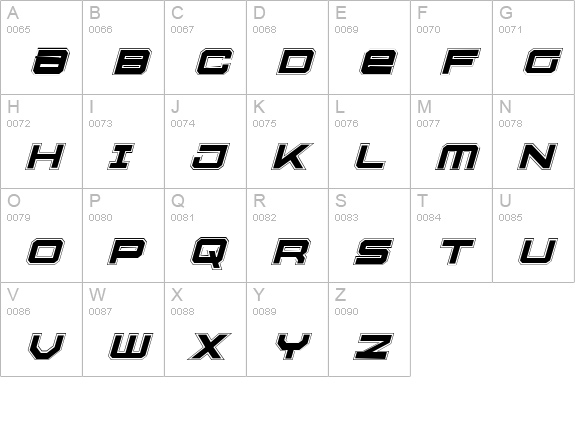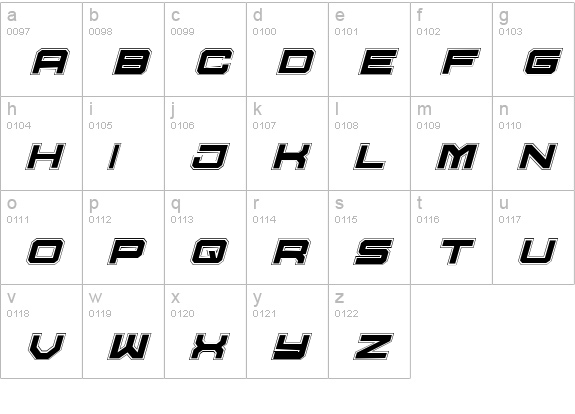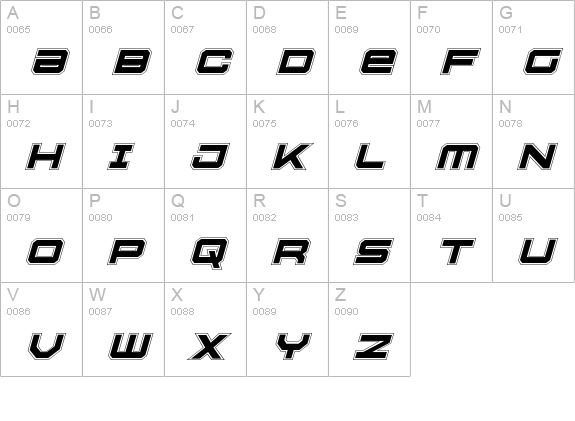
U.S.S. Dallas Academy Italic is a distinctive, italic variant in the U.S.S. typeface family \xE2\x80\x94 well suited to design and typography projects.
The U.S.S. Dallas Academy Italic font is a sleek and modern typeface that exudes elegance and sophistication. Its italicized style adds a touch of flair and sophistication to any design project. This versatile font is perfect for a wide range of applications, from branding to editorial design. Best of all, the U.S.S. Dallas Academy Italic font is available for free download at FontsMarket.com. This means that you can easily access and use this stylish font in your projects without any cost. Don't miss out on the opportunity to enhance your designs with this beautiful typeface - download the U.S.S. Dallas Academy Italic font today and take your creations to the next level!